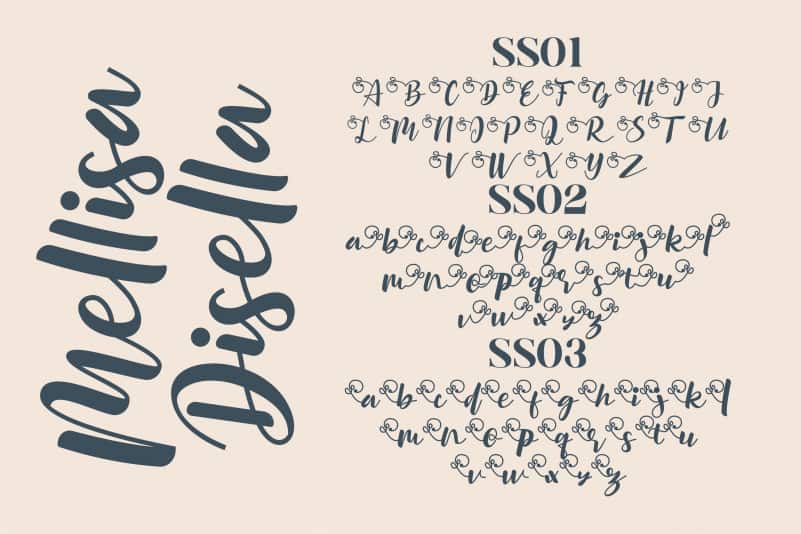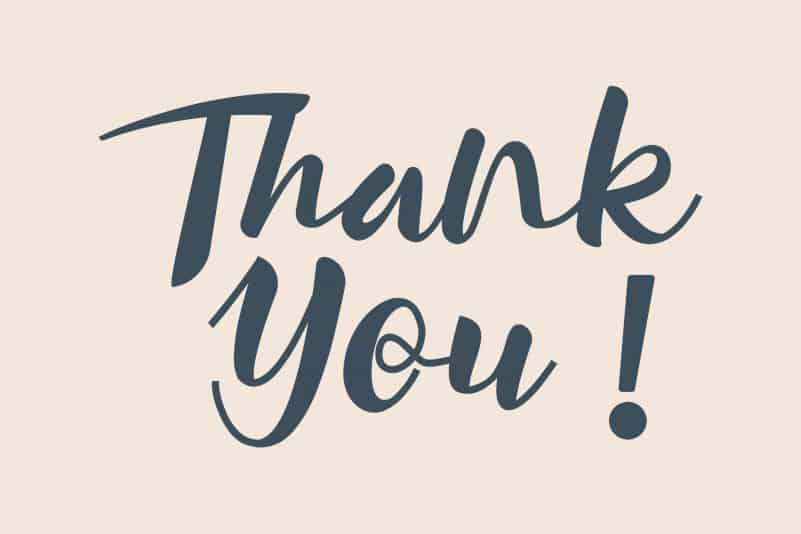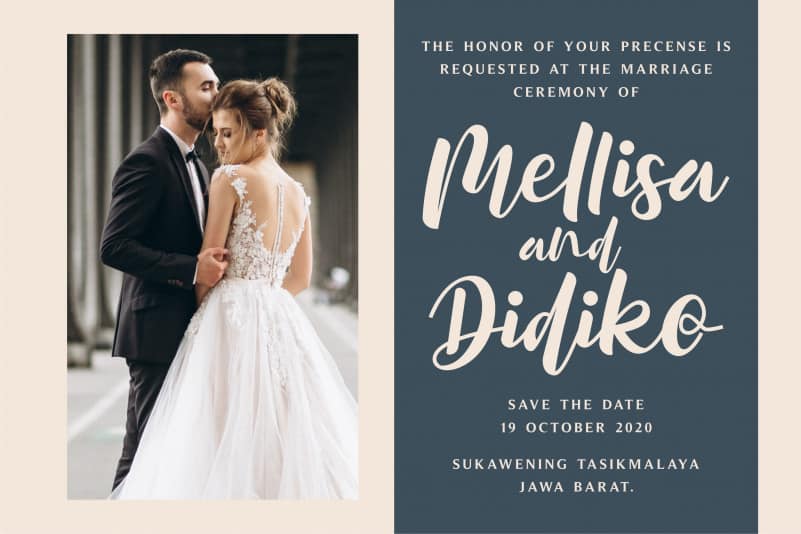
Mellisa Disella Font
Mellisa Disella Font – Elegant Script Font, from Letterena, is a romantic calligraphy font, suitable for any projects such as: logos, branding projects, homeware designs, product packaging, mugs, quotes, posters, shopping bags, t-shirts, book covers, name card, invitation cards, greeting cards, label, photography, watermark, special events, and all your other luxury projects that need a script Signature taste.